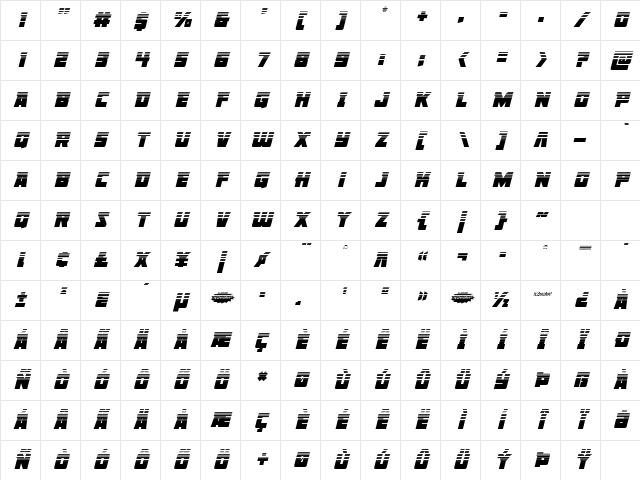
Liberty Legion Halftone Italic Italic
Design Context for Liberty Legion Halftone Italic
Liberty Legion Halftone Italic is a composed and adaptable typeface that performs quietly and consistently across a wide range of design contexts. The slanted form adds forward momentum and visual energy.
Pro Tip: Use Liberty Legion Halftone Italic for emphasis, pull quotes, and subheadings where its slanted energy can add rhythm to the layout.